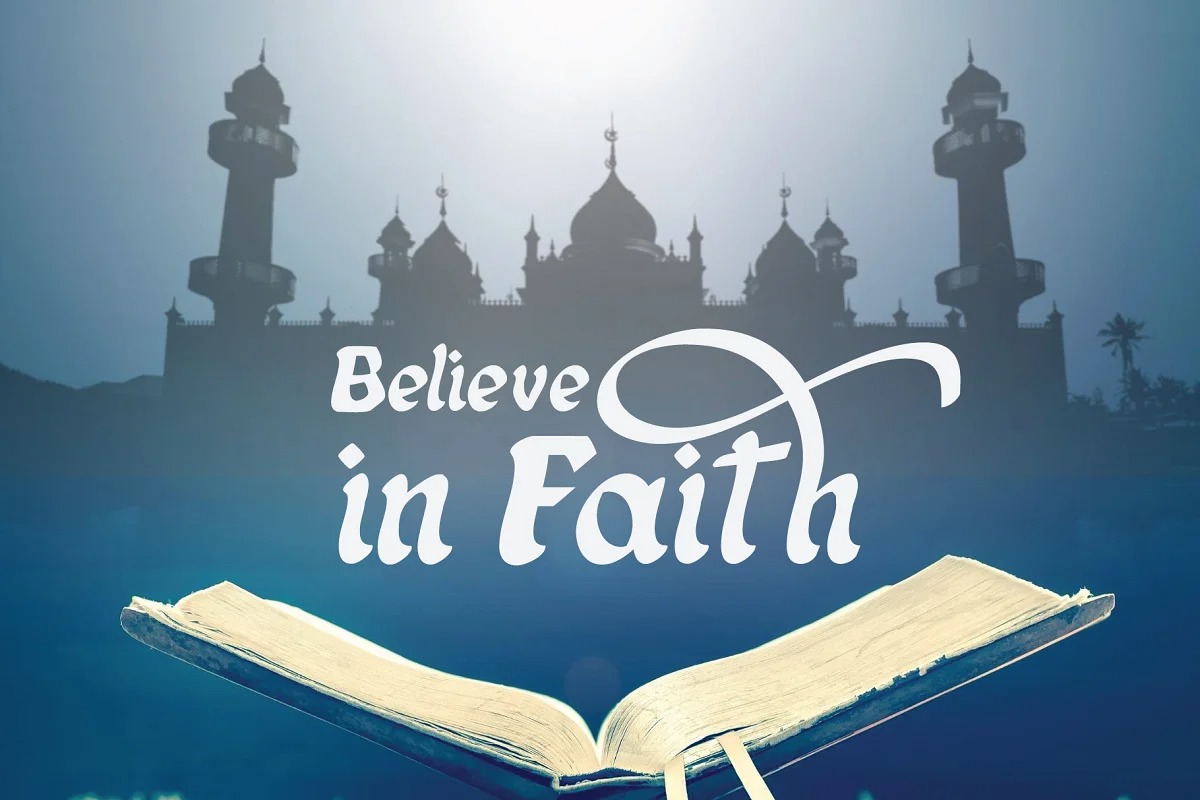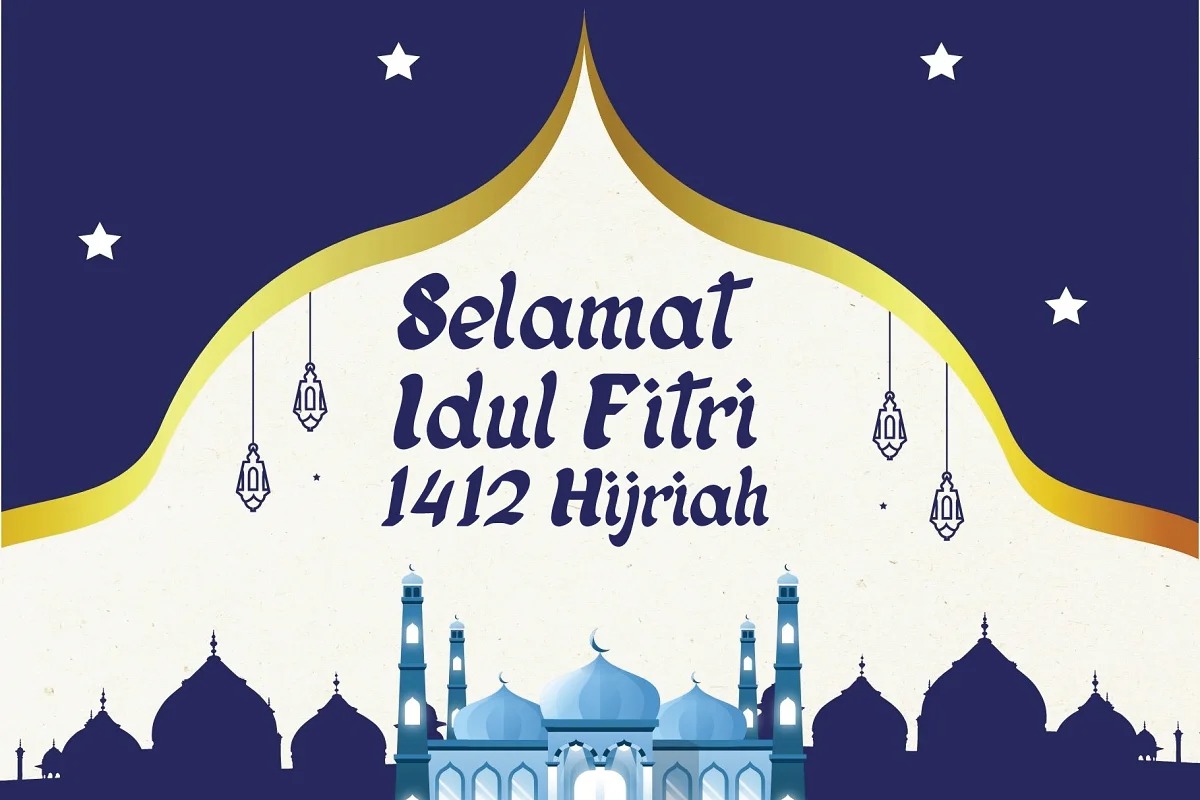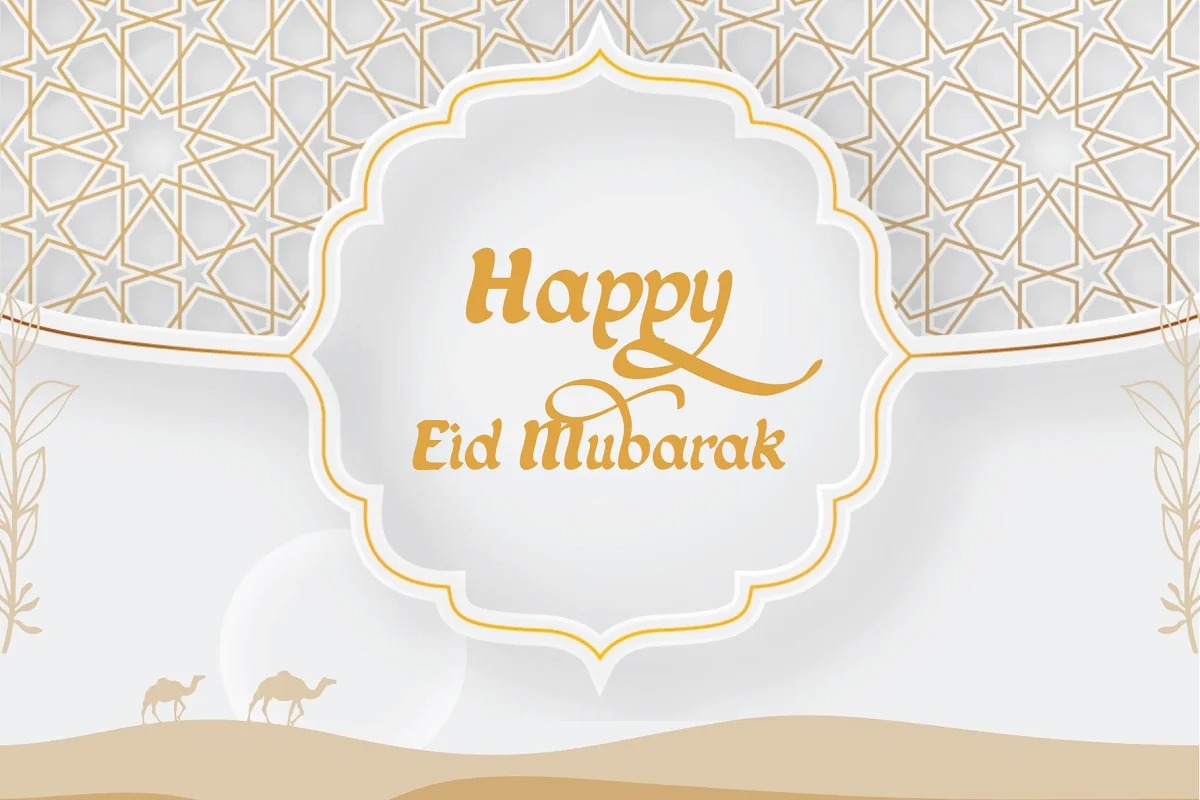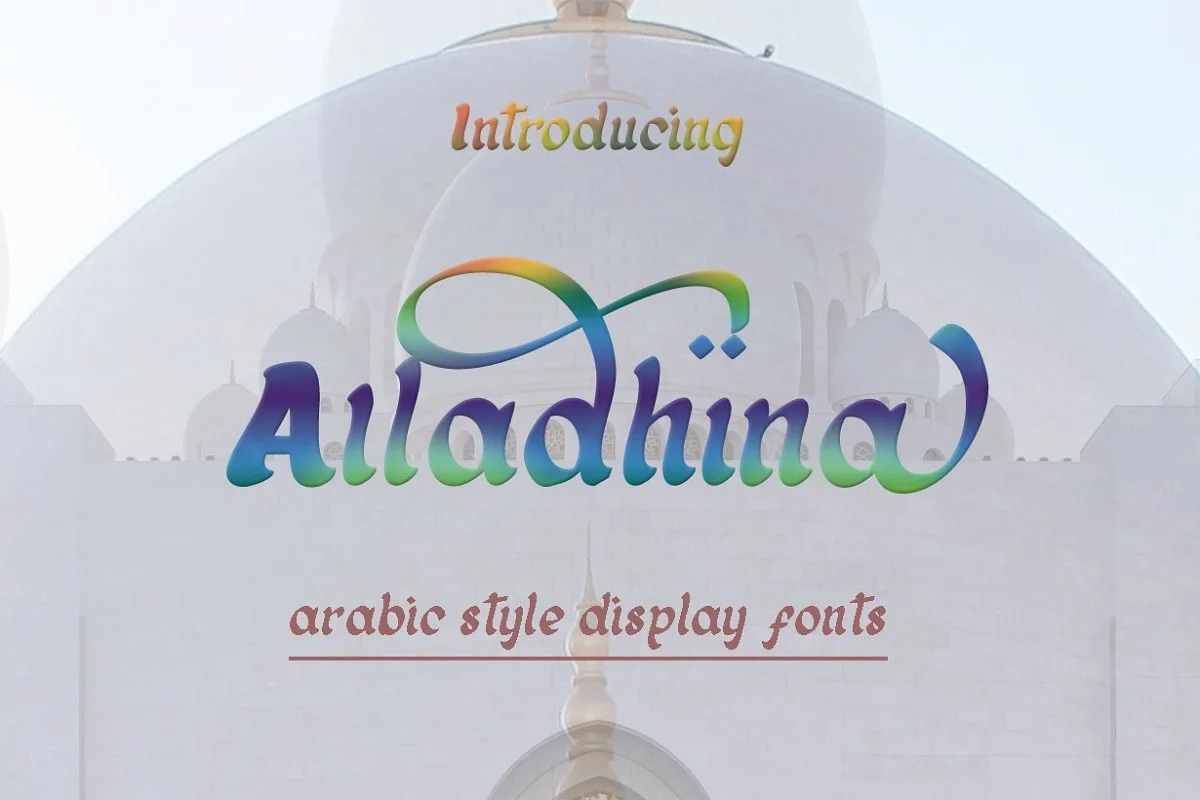
Alladhina Display Font
This font is a simplified look of the Black Letters font and is headed in a more clean and modern direction. Alladhina try to bring back the Baghdad and Alladin memories to your design or typography
Alladhina includes full set of lovely uppercase and lowercase letters, multilingual symbols, numerals and punctuation. This is so perfect for Vintage Design Style, Logo, Poster, etc.